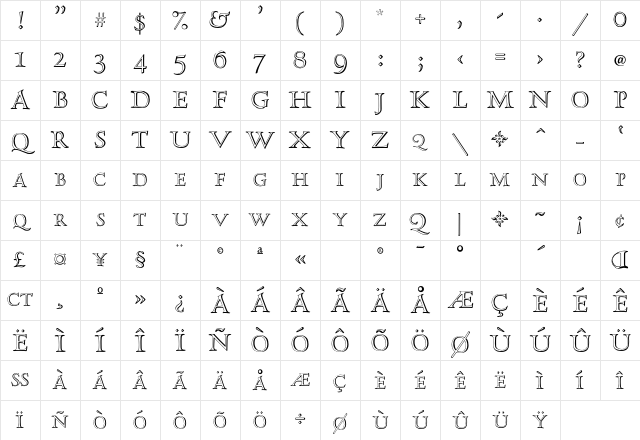
Complete HadrianoStoneCut Regular glyph index. Displaying only characters natively supported by HadrianoStoneCut Regular font.
HadrianoStoneCut is a composed and adaptable typeface that performs quietly and consistently across a wide range of design contexts.